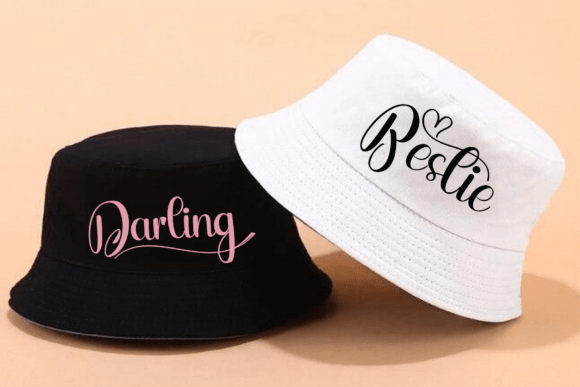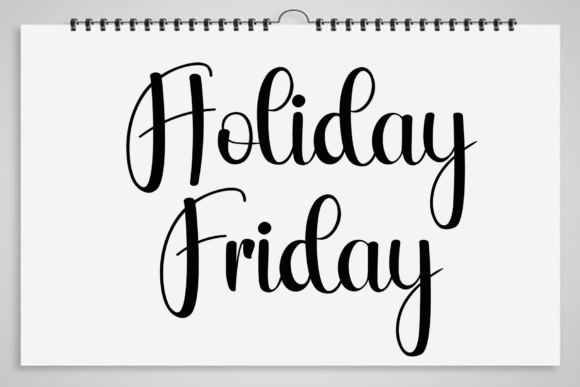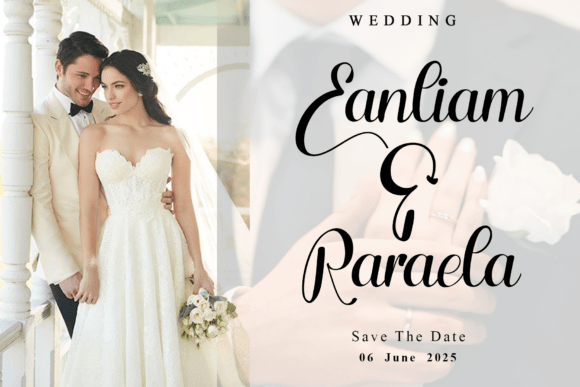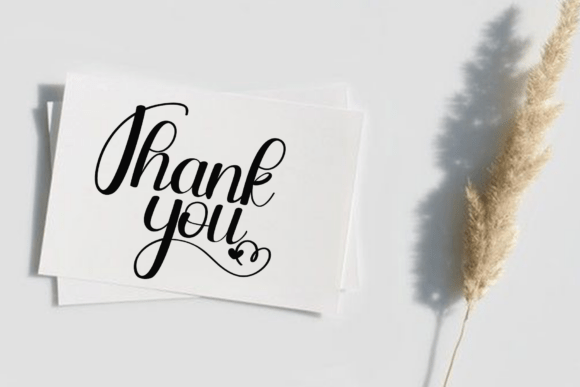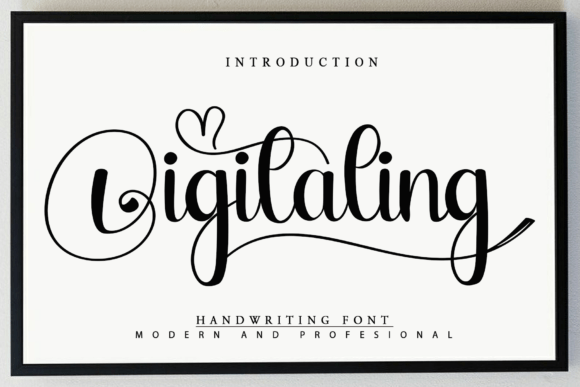
Introducing Digitaling Font: A Delicate Handwritten Style for Unique Designs
In the world of digital design, typography plays a crucial role in conveying messages, evoking emotions, and creating a lasting impression. For designers and crafters seeking a font that embodies a cool and unique aesthetic, Digitaling Font is an excellent choice. This delicate handwritten font is carefully crafted to add a touch of elegance and sophistication to various design projects.
What is Digitaling Font?
Digitaling Font is a beautifully designed handwritten font, perfect for creating stunning visual content. Its delicate strokes and unique character set make it an ideal choice for designers looking to add a personal touch to their work. Whether you’re designing invitations, writing letters, or creating titles for food products, Digitaling Font is a versatile and stylish option.
Key Features of Digitaling Font
• Delicate Handwritten Style: Digitaling Font boasts a beautiful, handcrafted design that exudes elegance and sophistication.
• Cool and Unique Design: The font’s distinctive character set and subtle imperfections give it a one-of-a-kind look that’s sure to grab attention.
• Versatile: Digitaling Font can be used for a wide range of design projects, including letters, invitations, food products, titles, and more.
• Easily Readable: Despite its delicate nature, Digitaling Font remains highly legible, making it perfect for both digital and print applications.
Use Cases for Digitaling Font
Digitaling Font’s versatility makes it suitable for various design projects. Here are some use cases to inspire your creativity:
• Invitations and Event Branding: Create stunning invitations, save-the-date cards, and event branding materials with Digitaling Font.
• Food Product Labeling: Add a touch of elegance to your food product labels, making them stand out on store shelves.
• Lettering and Calligraphy: Use Digitaling Font for beautiful lettering and calligraphy projects, such as quotes, poems, or love letters.
• Titles and Headings: Enhance your blog posts, articles, or social media graphics with eye-catching titles and headings created using Digitaling Font.
Digitaling Font is a beautiful, delicate handwritten font that’s perfect for designers and crafters seeking a cool and unique design element. Its versatility, readability, and elegance make it an excellent choice for a wide range of projects. With Digitaling Font, you can add a touch of sophistication and personality to your designs, making them truly unforgettable.